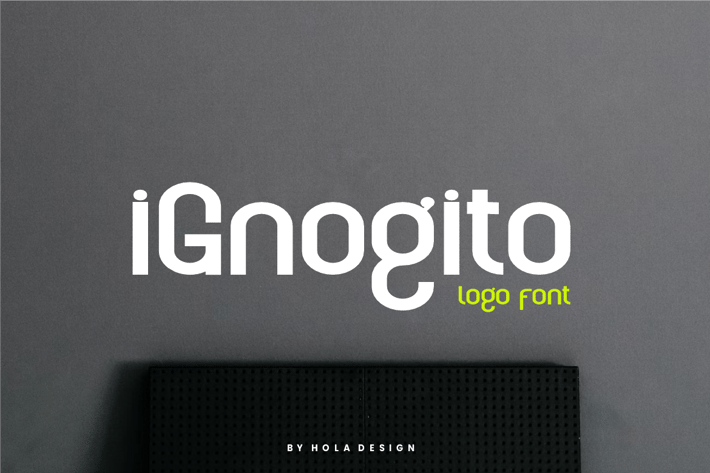
Ignogito Logo Font
Ignogito Logo Font Font is unique . Ready to use for your design like labeling, movie sceen, poster, movie title, gigs, album covers, logos, and much more.